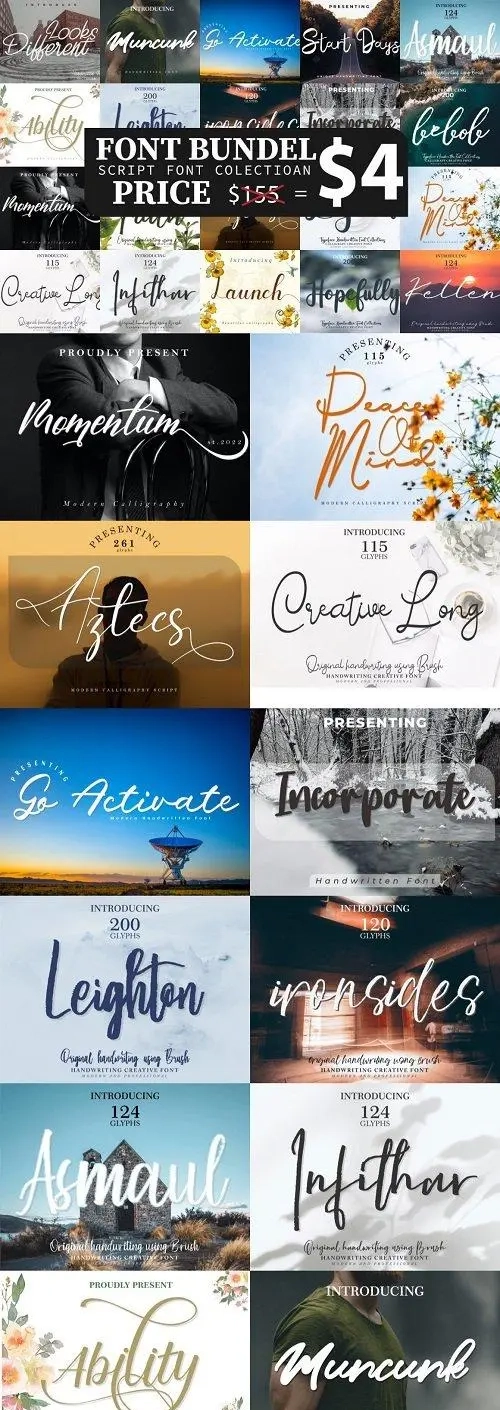
Script Font Collection Bundle – 20 Fonts
Elevate your design projects with our Script Font Collection Bundle, featuring 20 beautifully crafted script fonts. Each font in this collection has been designed with attention to detail, making them perfect for a variety of applications.
• 20 unique script fonts
• Variety of styles and weights
This bundle includes a mix of elegant, playful, and modern script fonts, ideal for branding, logos, invitations, and more. Each font is equipped with a full set of characters, including uppercase, lowercase, numbers, and punctuation.
Utilize these fonts for creating stunning visuals in print and digital media. They work wonderfully for wedding invitations, greeting cards, and social media graphics.